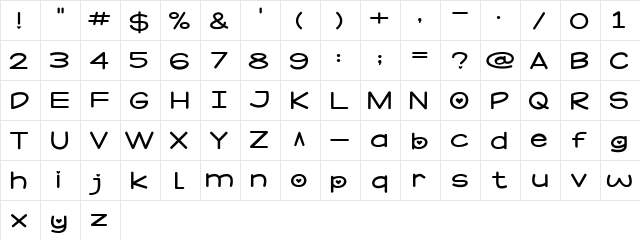
Cayank Qiu Regular
| Foundry | Polah |
| Designer | Polah |
Design Context for Cayank Qiu Typeface
Cayank Qiu is a composed and adaptable typeface that performs quietly and consistently across a wide range of design contexts.